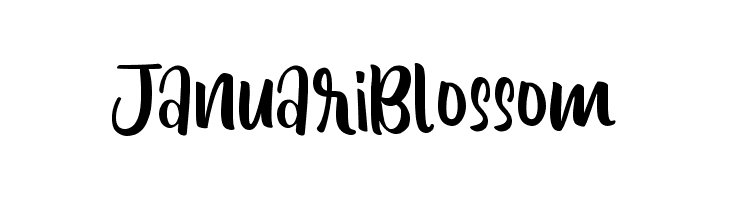
A bold, angular font with a modern and dynamic style.
A graceful script font with flowing, connected strokes and elegant details.
A playful, hand-drawn font with rounded, irregular letterforms.
Easter-themed dingbat font with detailed illustrations.
A bold, angular font with a modern twist on traditional calligraphy.
A fluid and elegant script font with a natural handwritten style.
A modern serif font with high contrast and elegant, refined lines.
A bold, geometric font with a blocky, futuristic style.
A playful, bold font with rounded, bubble-like characters.
A playful, artistic handwritten font with fluid strokes and dynamic character.
A playful set of cartoon character illustrations in circular frames.
A themed dingbat font with Hanukkah and Jewish festival icons.
Playful handwritten font with rounded edges.
Illustrations of women, not a font.
A bold, geometric font with a 3D outlined effect and a futuristic, mechanical style.
A graceful and artistic script font with elegant loops and flourishes.
A playful, zombie-themed decorative font with cartoonish characters.
A bold, distressed font with characters enclosed in textured boxes, perfect for vintage and grunge designs.
A bold, expressive handwritten font with dynamic, fluid strokes.
A futuristic, hollow, geometric font with sharp, angular lines.
A spooky, decorative font with sharp serifs and a Halloween-inspired style.
A fluid and elegant script font with a signature-like style.
Bold, 3D italic font with a dynamic and futuristic style.
A bold, italicized font with a gradient effect and a futuristic, digital style.
A futuristic, engraved font with a three-dimensional, geometric design.
A vintage, distressed typewriter-style font with an italic slant.
A bold, distressed font with a roller-printed, textured appearance.
A bold, expanded, and italic font with a futuristic and dynamic style.
A modern, oblique sans-serif font with clean lines and a dynamic slant.
A bold, textured font with a cracked, stone-like appearance.
A bold, decorative font with intricate, swirling details and a fantasy-inspired style.
A bold, pictographic icon set themed around pregnancy and maternity.
A bold, futuristic outline font with an italic slant and geometric design.
A bold, playful font with a 3D shadow effect, ideal for eye-catching designs.
A bold, italic script font with dynamic and fluid strokes.